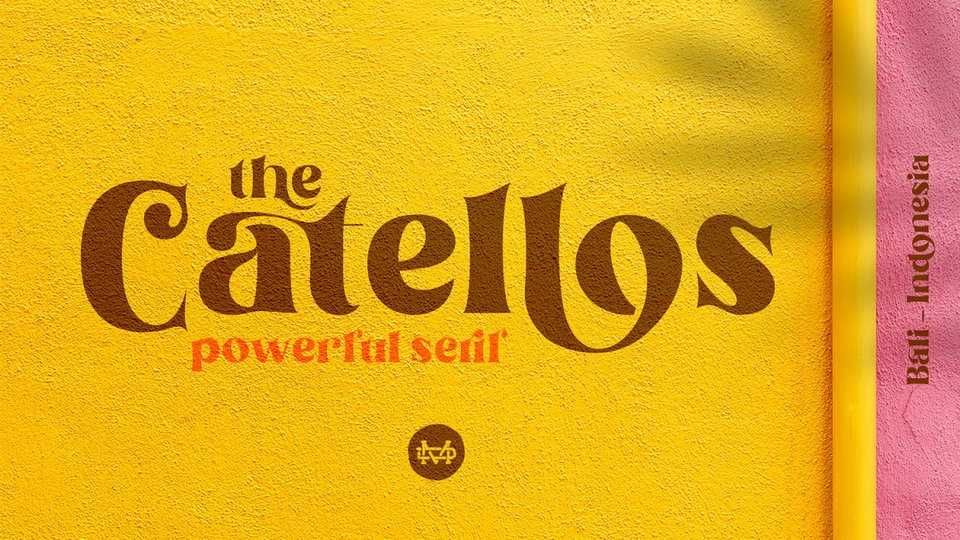
Download Catellos font, an elegant serif typeface a with many alternates and ligatures. Catellos is suitable to create any branding, product packaging, invitation, quotes, t-shirts, labels, posters, logos and more.
Designer: TypeClassHeroes